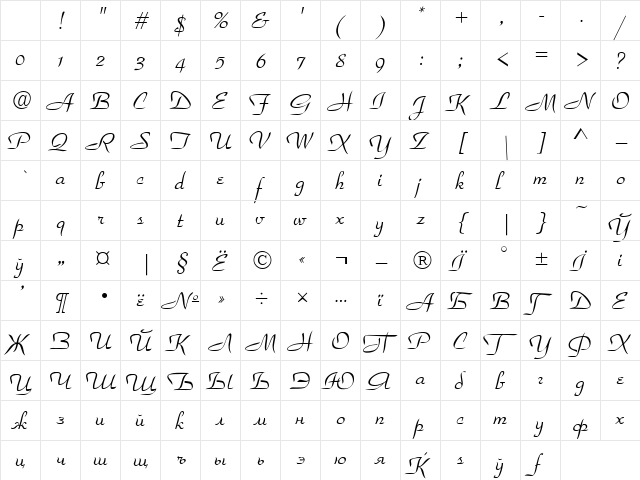
Torhok is a composed and adaptable typeface that performs quietly and consistently across a wide range of design contexts. The slanted form adds forward momentum and visual energy.
Pro Tip: Use Torhok for emphasis, pull quotes, and subheadings where its slanted energy can add rhythm to the layout.